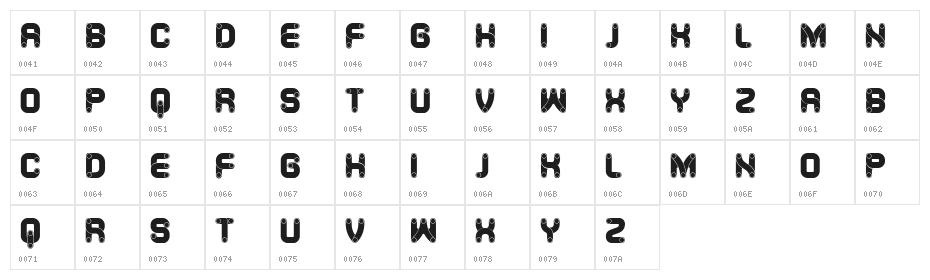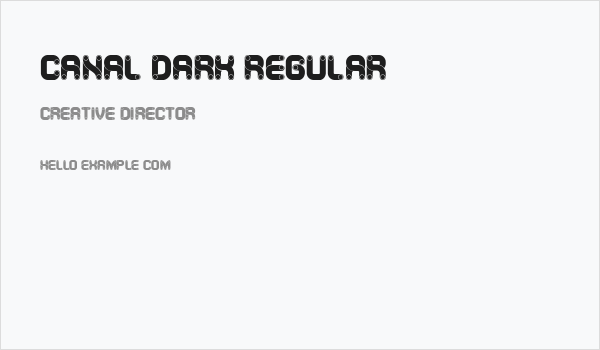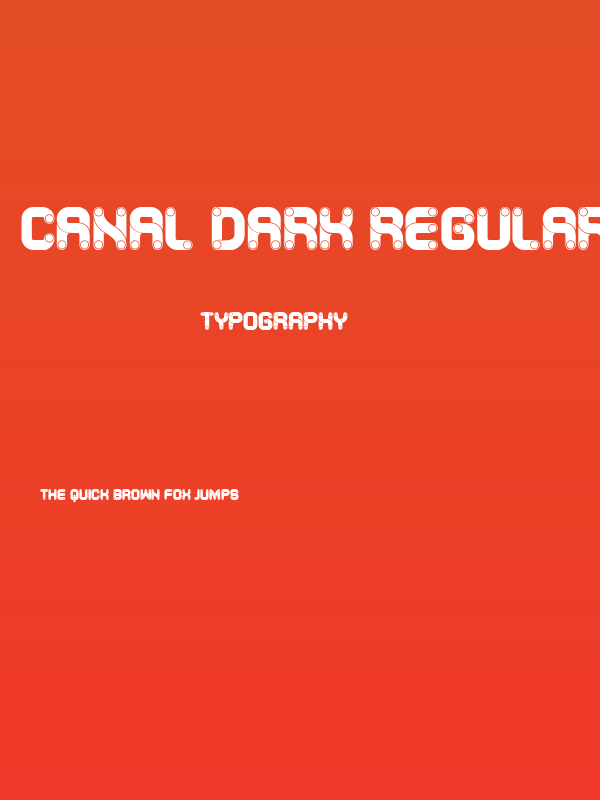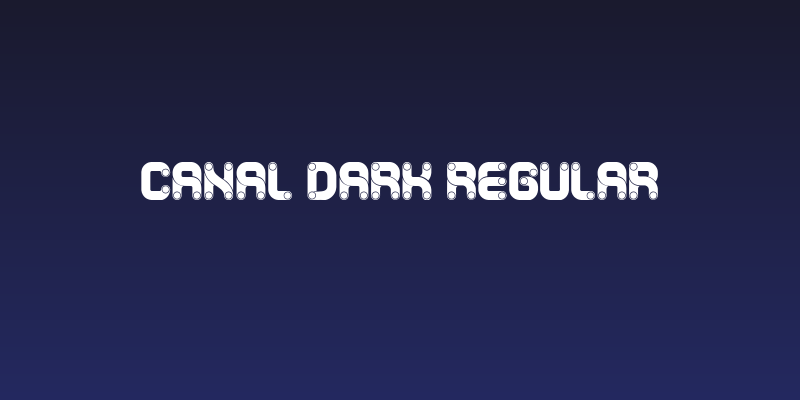
Canal Dark Regular Font
Canal Dark Regular Description
This font features a bold, geometric design with a unique industrial aesthetic. Each character is constructed with thick, rounded strokes and circular cutouts, giving it a mechanical and futuristic appearance. The uniformity in the design creates a cohesive look, while the circular elements add a distinctive touch. The font maintains a consistent weight throughout, providing a strong visual impact. Its boldness and unique style make it suitable for attention-grabbing headlines and creative projects that require a modern, industrial feel.
| Overall Style | Modern, Industrial |
| Proposed Projects | Ideal for use in technology branding, sci-fi posters, video game titles, and industrial-themed designs. |